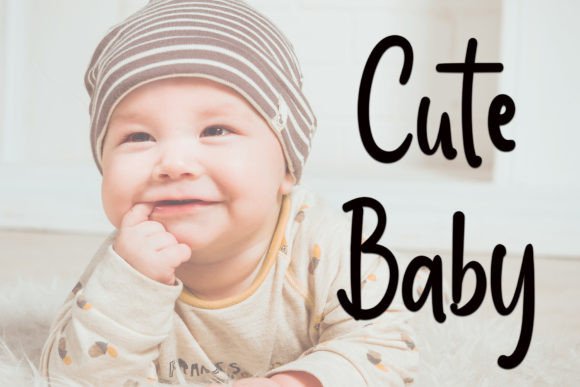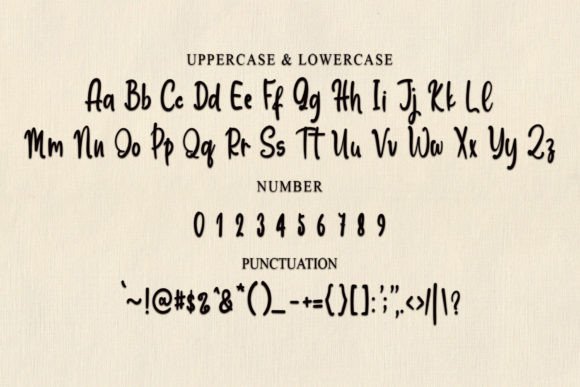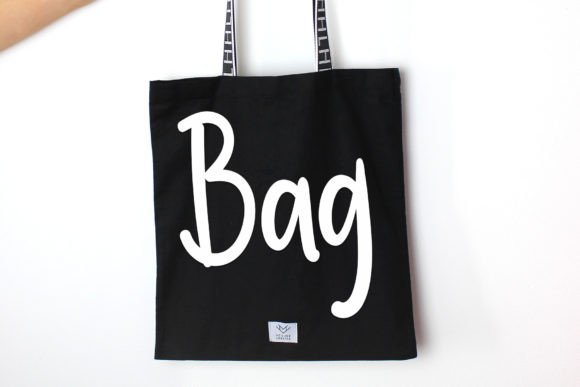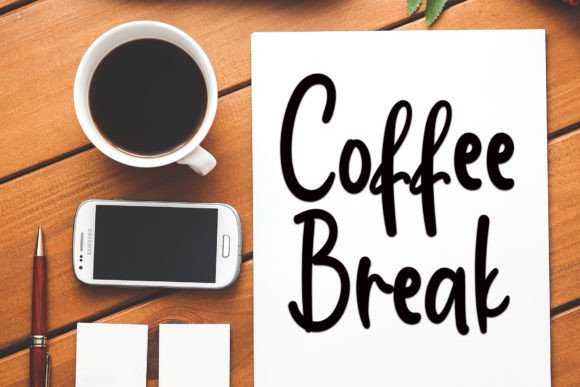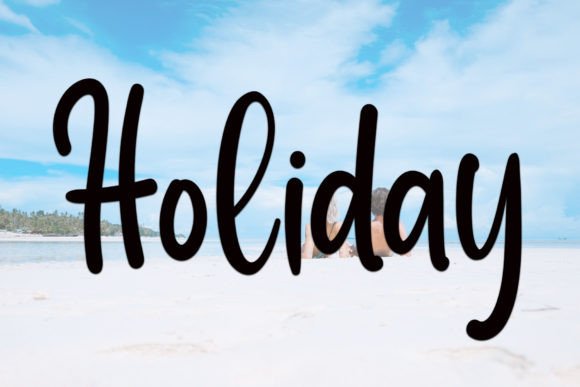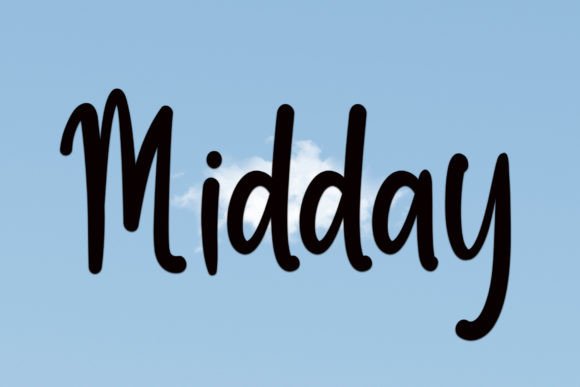
The Power of Playful Typography: A Deep Dive into the Children Font
I’ll never forget the moment I stumbled upon the perfect font for a children’s book project. I had been searching for what felt like hours, scrolling through endless pages of Google Fonts, trying to find that one special something that would bring my illustrations to life. And then, I saw it: the Children font. Its playful, handwritten curves and carefree vibe instantly captured my attention. I knew right then and there that I had found the perfect fit for my project.
So, what makes the Children font so special? Let’s dive into the good stuff first! 😊
- ✨ Versatility: This font is incredibly versatile. Whether you’re working on a children’s book, a craft project, or a fun social media graphic, the Children font fits right in.
- ✅ Readability: Despite its playful nature, the Children font remains highly readable, even at smaller sizes.
- 🌈 Colorful personality: The font’s playful, handwritten style injects a dose of fun and whimsy into any design.
Of course, no font is perfect, and the Children font has a few minor quirks to consider:
- 🤔 Kerning issues: As with many handwritten fonts, you may encounter some kerning issues, particularly with certain letter combinations. This can usually be adjusted manually in most design software.
- ⚠️ Limited formal use: Given its playful nature, the Children font might not be the best choice for more formal or professional projects.
- Take advantage of OpenType features like glyphs and stylistic alternates to add more personality to your text.
The Story Behind the Children Font
While the exact origins of the Children font are unclear, it’s easy to imagine a designer with a passion for playful typography creating it. Perhaps they were inspired by the carefree spirit of childhood, seeking to bottle that magic into a font that would bring joy to designers and readers alike.
| Font Name | Children Font |
| Author | K_IN Studio |
| Does the Children font support OpenType features? | Yes, the Children font supports OpenType features, including glyphs and stylistic alternates. |
| Is the Children font easy to read? | Despite its playful nature, the Children font is highly readable, even at smaller sizes. |